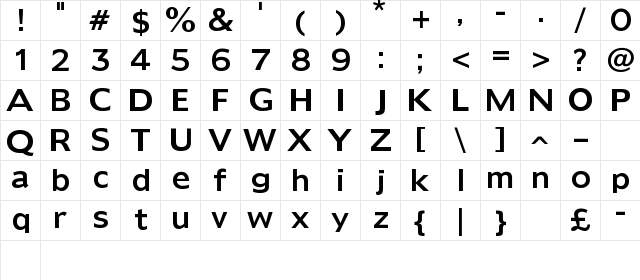
Reforma Regular
Design Context for Reforma Typeface
Reforma is a composed and adaptable typeface that performs quietly and consistently across a wide range of design contexts.
Pro Tip: Use Reforma in both headline and body roles to test its range before committing to a single application.